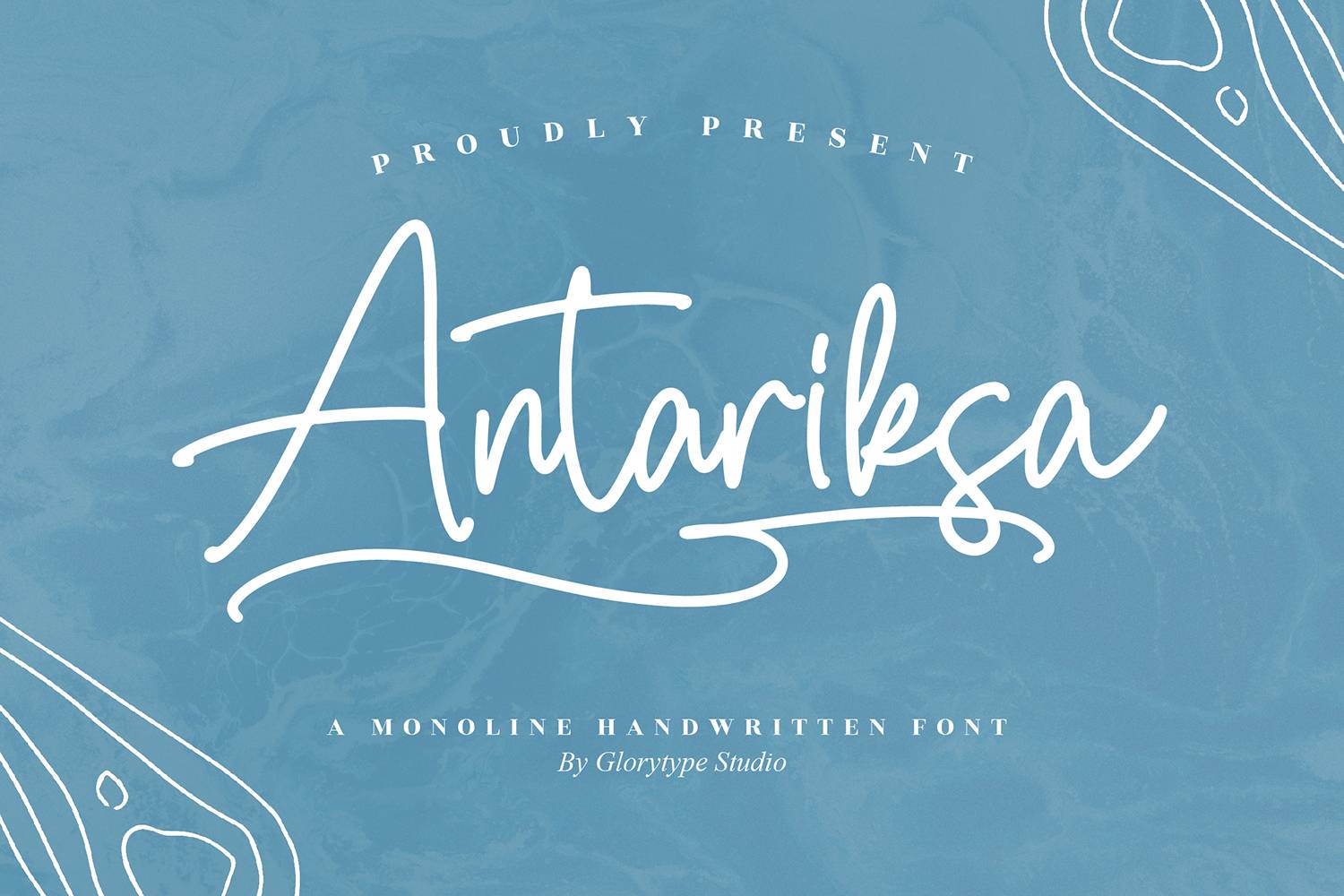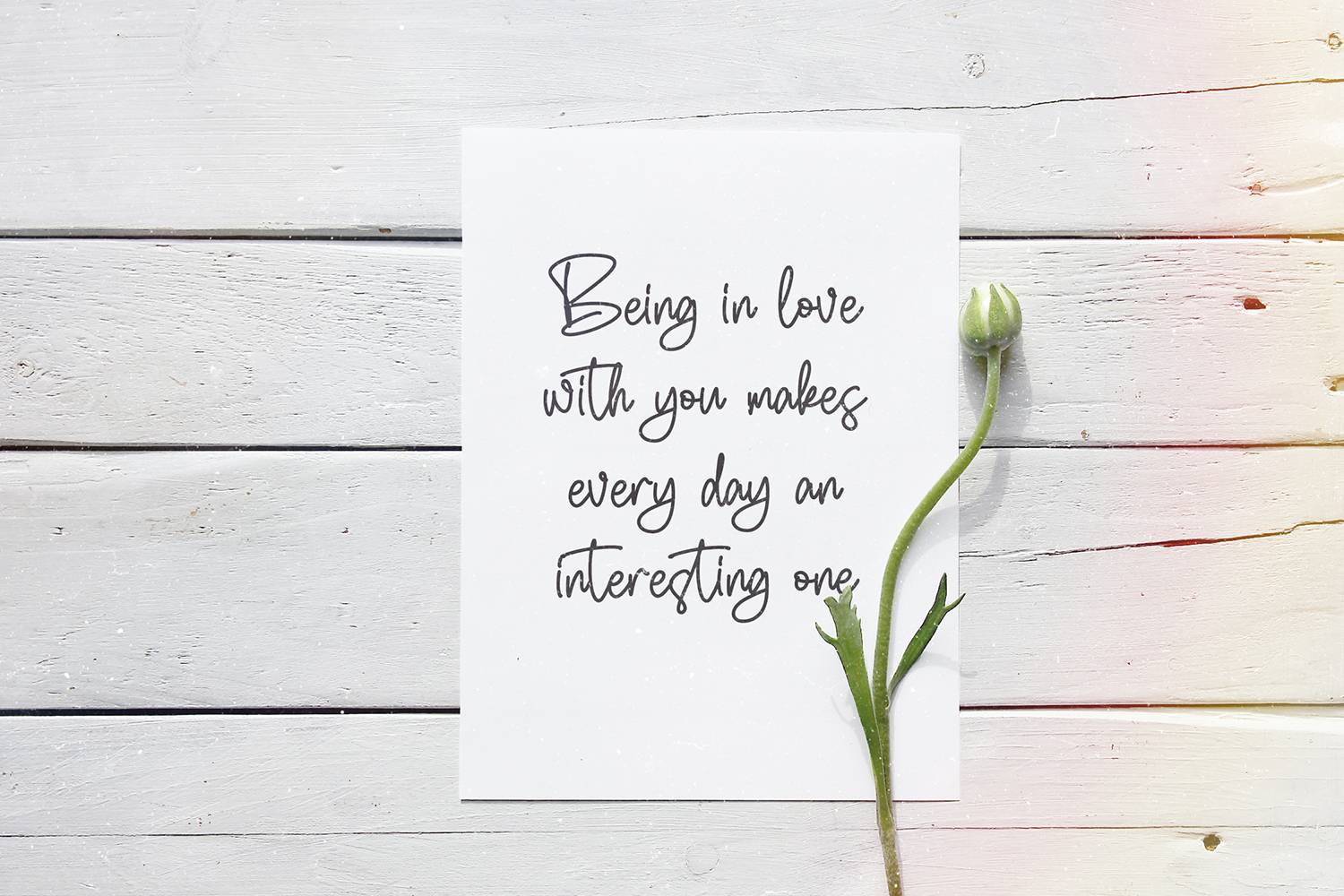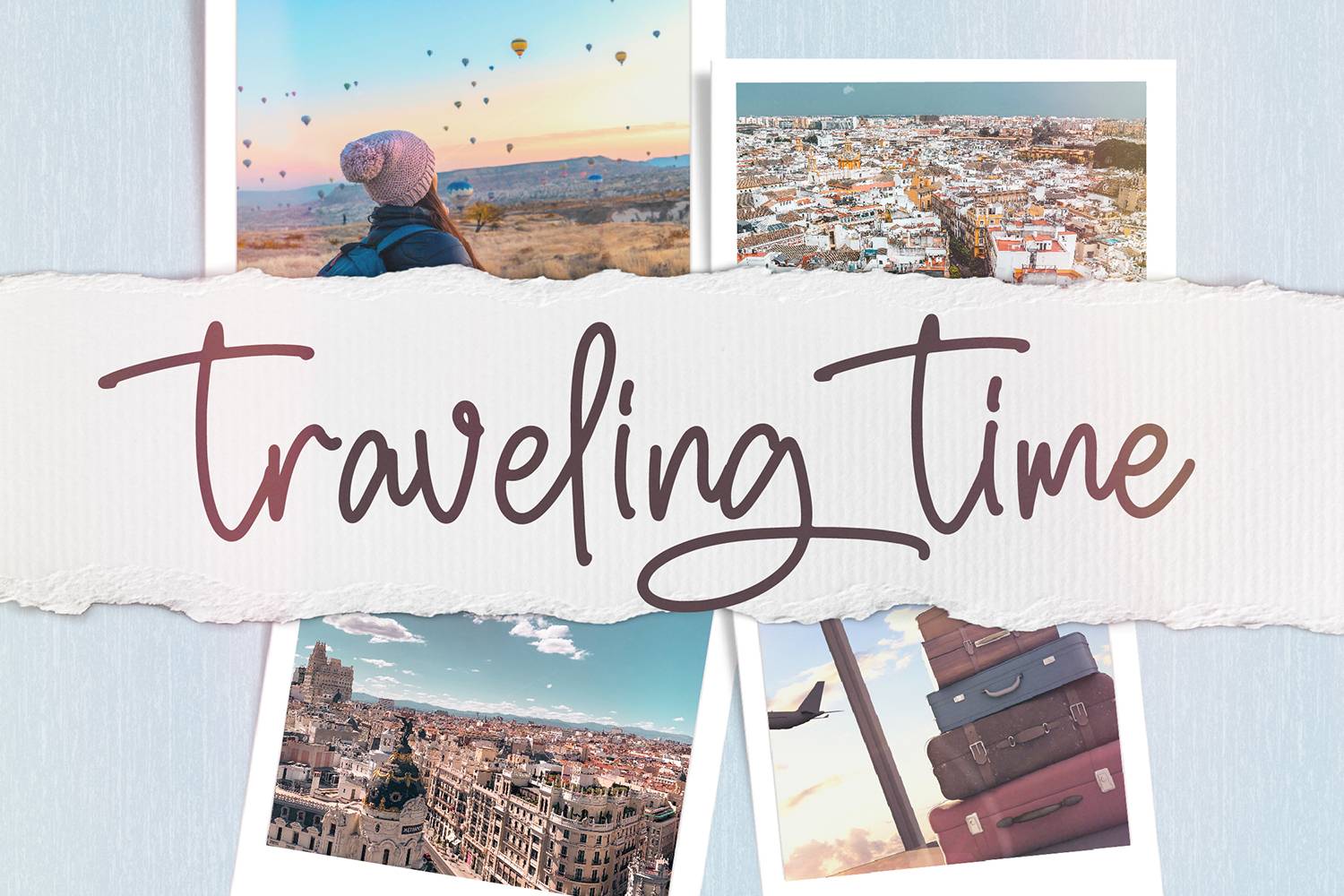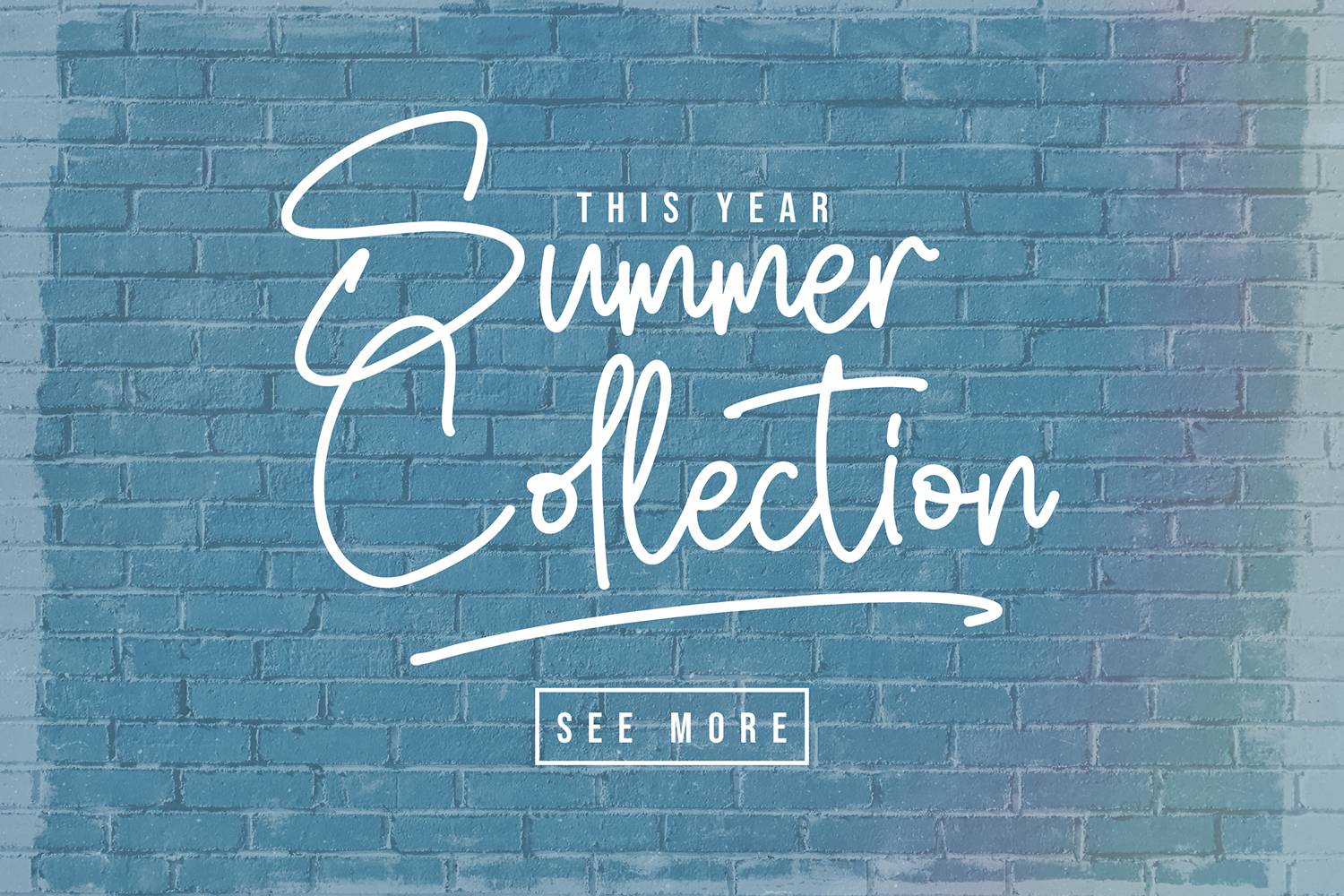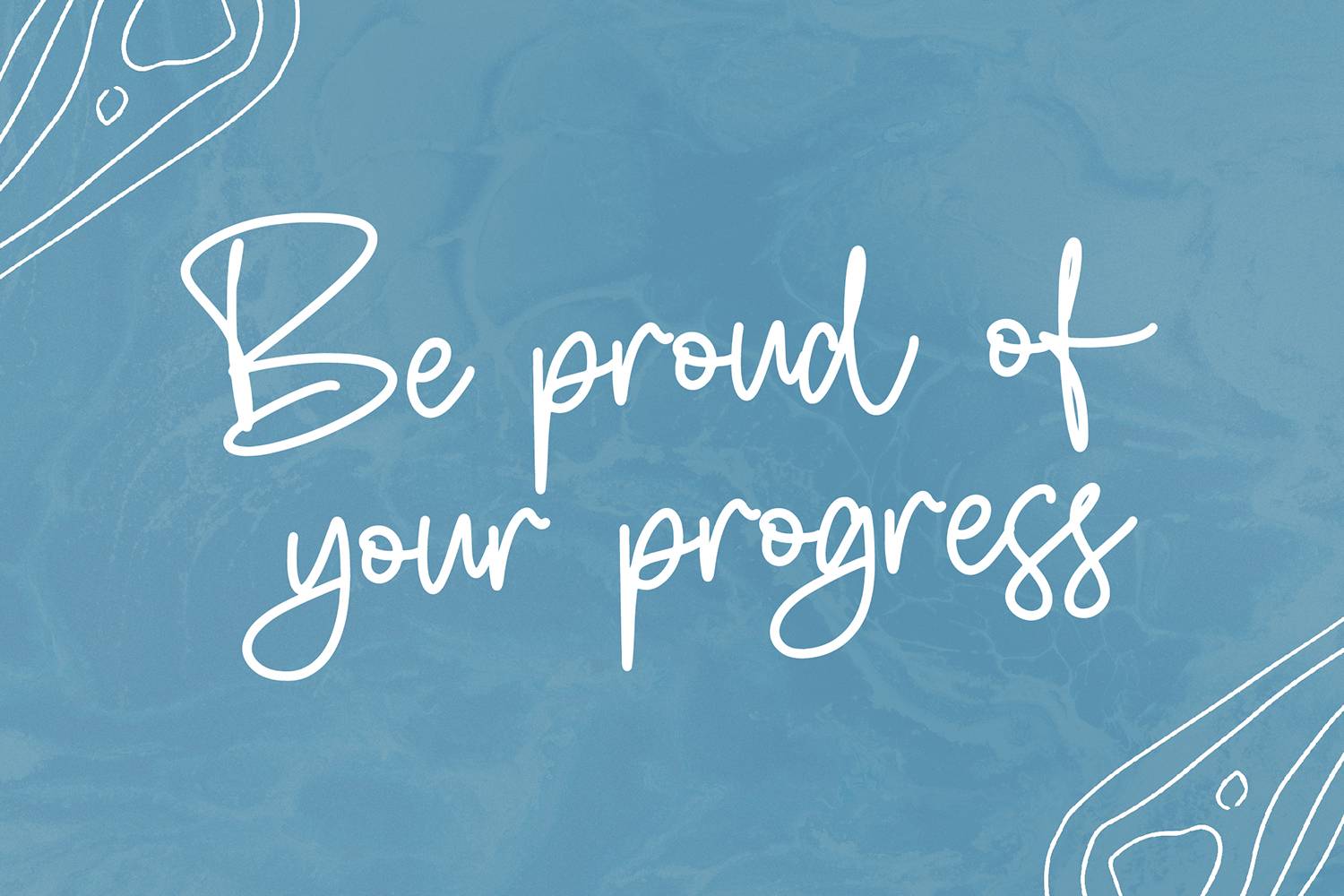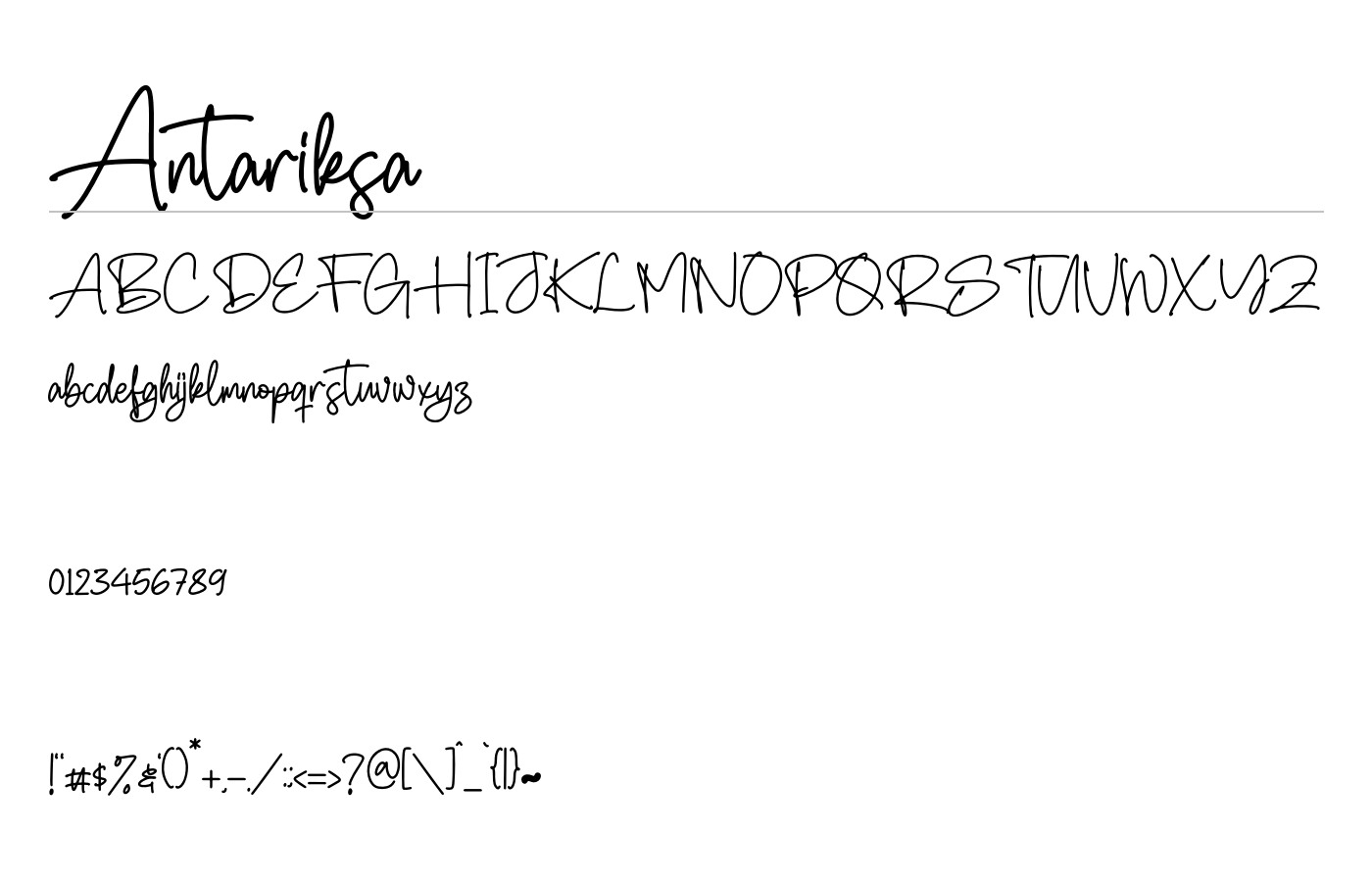
Antariksa is a casual, handwritten script font characterized by its thin, airy strokes and playful, slightly irregular letterforms that convey a personal and informal vibe. With its tall x-height and loosely connected letters, it feels friendly and approachable, making it ideal for creative branding, invitations, and social media graphics where a relaxed, authentic touch is desired. Its distinctive, energetic style works best in headlines or display settings, adding warmth and spontaneity to any design.
Antariksa Font
About Antariksa Font